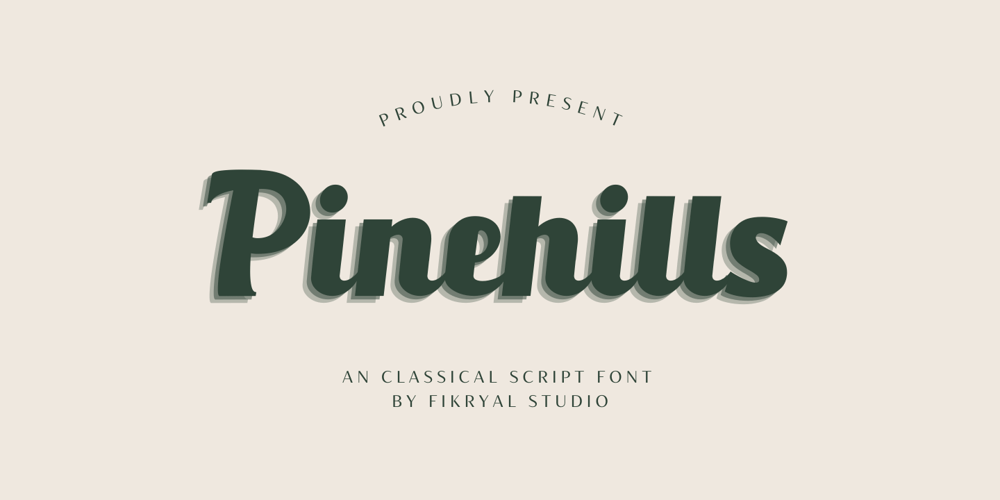
Pinehills Font Family was designed by Muhammad Fikry and published by Fikryal. Pinehills contains 1 styles and family package options. Pinehills – Font is a classical script font. With a classic style that can make your design look simple, elegant, and also bold, this font it’s perfect for logo, branding, title, social media posts, advertisements, product packaging, product designs, label, photography, watermark, special event, magazine, web design, vintage design, etc.Features :Pinehills( Uppercase, Lowercase )Stylistic alternateLigaturesMultilingual SupportIf you have any questions please don’t hesitate to contact me.follow my Instagram: @fkryallThank you 🙂